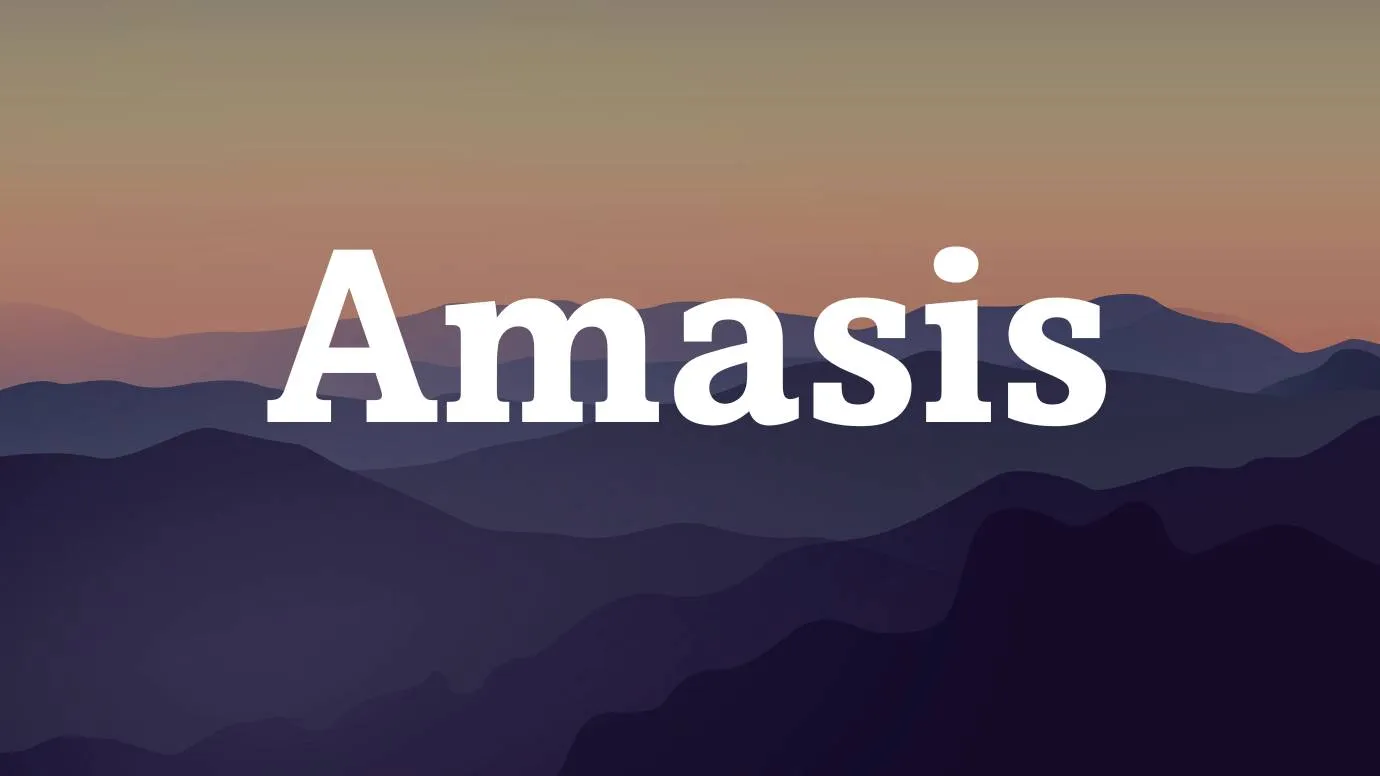
Amasis Font Family is a attractive and eye-catching font was designed and published by a very famous designer named Mr. Ron Carpenter. It was initially created by Monotype foundry. This typeface also looks like serif fonts and uses in all well-suited projects.
NameAmasis Font
TypeSlab-Serif
DesignerMr. Ron Carpenter